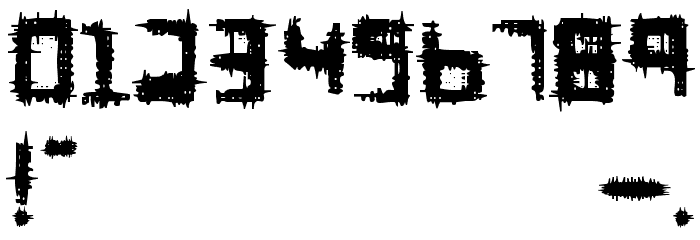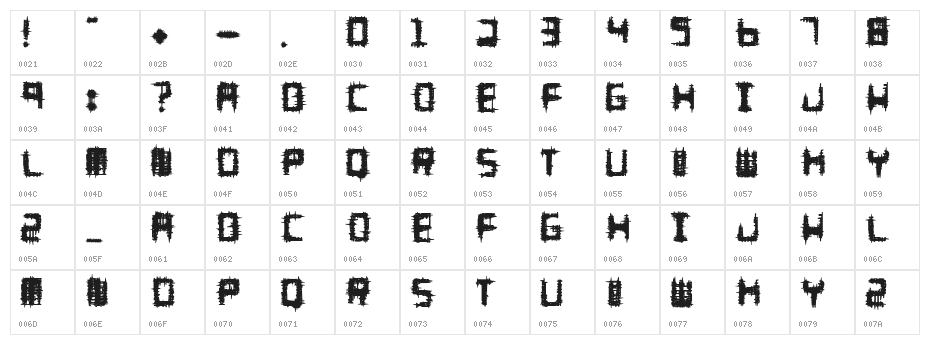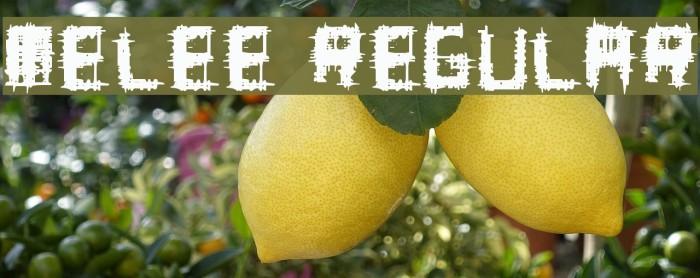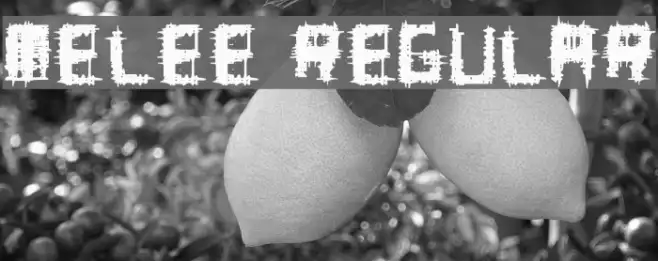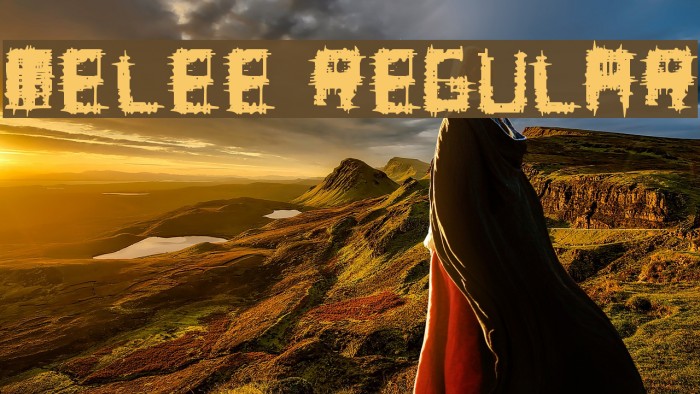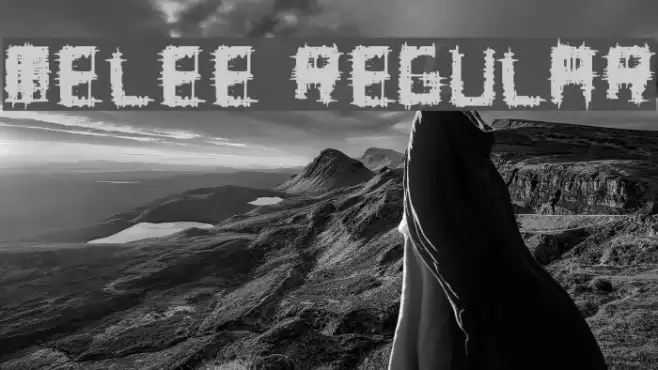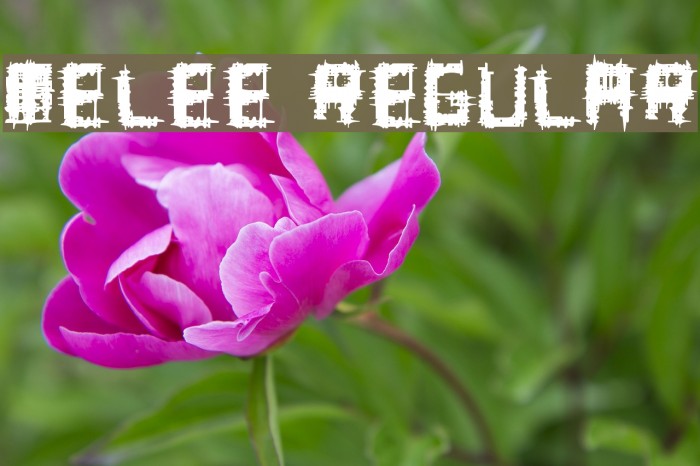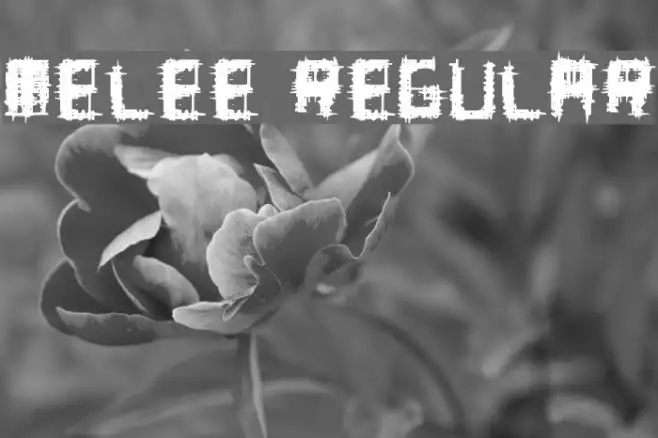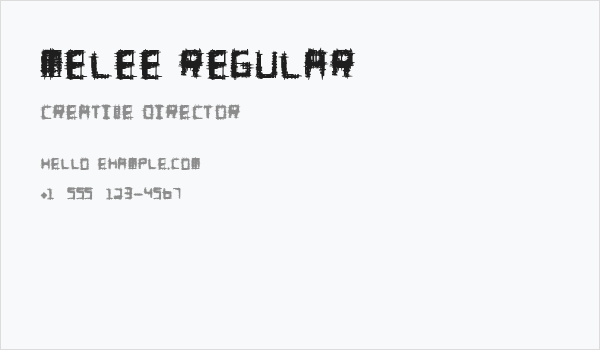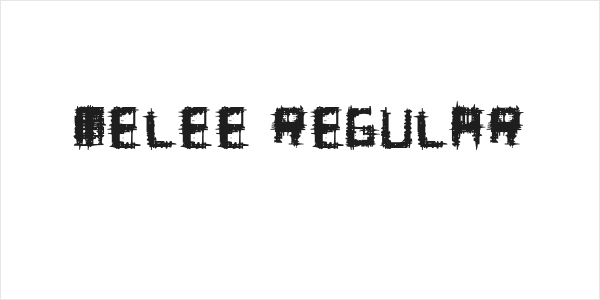
Melee Regular Font
Melee Regular Description
This font features a highly distressed and rugged appearance, with each character appearing as if it has been scratched or eroded. The edges are irregular and jagged, giving it a raw and chaotic feel. Despite its roughness, the characters maintain a consistent height and width, ensuring readability. The style evokes a sense of rebellion and edginess, making it suitable for projects that require a bold and unconventional look. The font's unique texture and form make it stand out, adding a dramatic flair to any design.
| Proposed Projects | Ideal for music album covers, horror movie posters, edgy branding, and streetwear designs. |